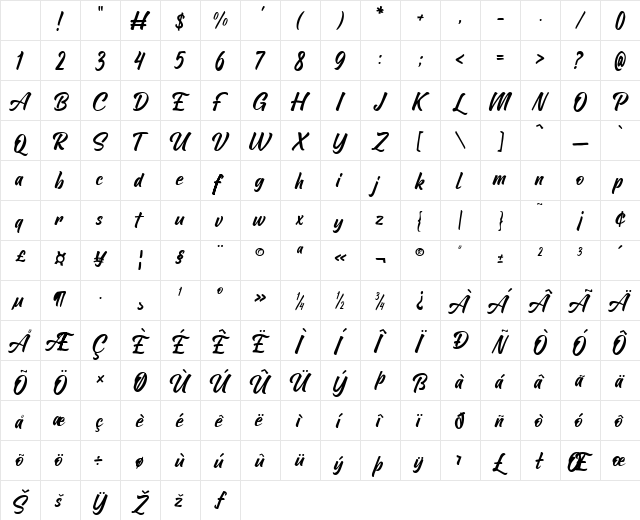
Complete Frosted Breath Regular glyph index. Displaying only characters natively supported by Frosted Breath Regular font.
Frosted Breath is a composed and adaptable typeface that performs quietly and consistently across a wide range of design contexts.